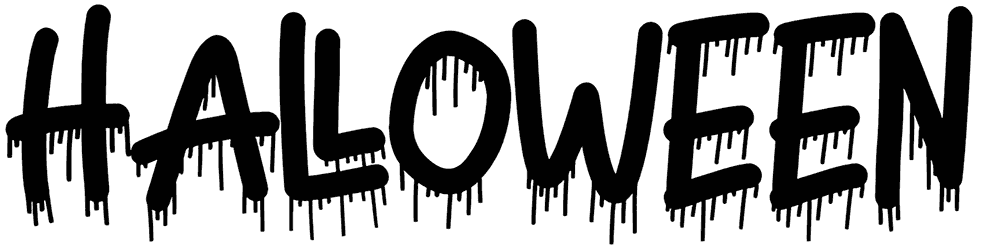
Halloween Font
Halloween is a true design treasure that, once you download it, you won’t be able to stop using it. This Halloween font includes everything you need to create a perfect piece of spooky art that covers up the lack of lowercase letters as well.
By using this dripping font, you can create a pleasant experience of encountering your brand in the form of a poster, packaging, or advertisement for the reader, which will forever stick your name in their mind.